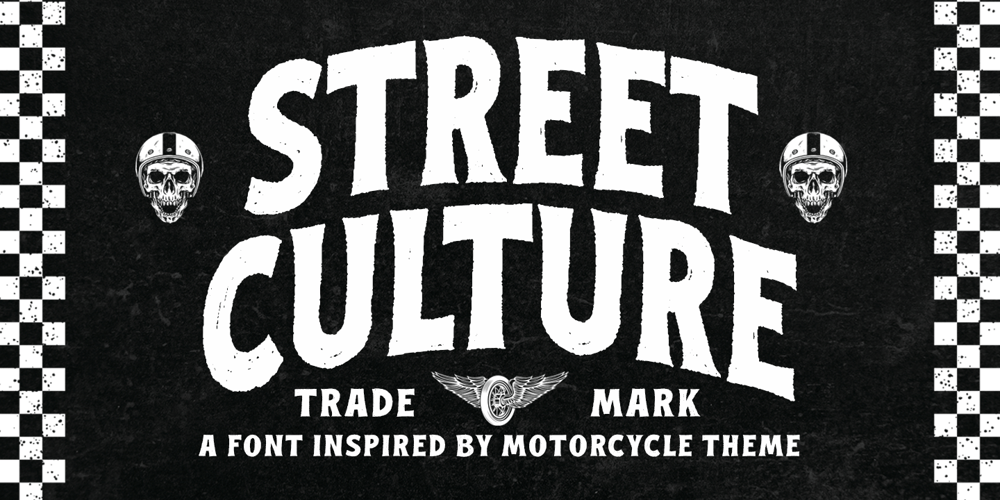
Street Culture Font Family was designed by Bangkit Tri Setiadi and published by Blankids. Street Culture contains 2 styles and family package options. Hello,Are you looking for a rustic serif font? Do you want of creating Something that stand out and inspire creativity, imagination, and endless fun? Wait no more, we will give you the best choice.Street Culture a Rustic Serif Font, Inspiring from college typography. This font is perfect for a design that makes it more attractive and playful. made with a very good level of aesthetics making this font suitable for book cover, poster, packging, merchandise, logotype and much more.